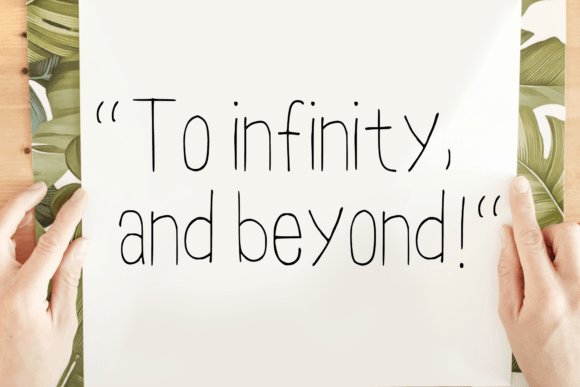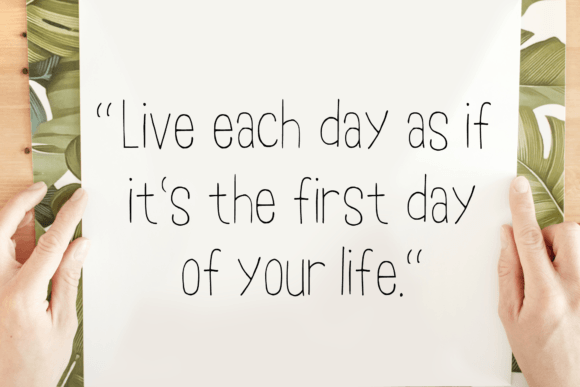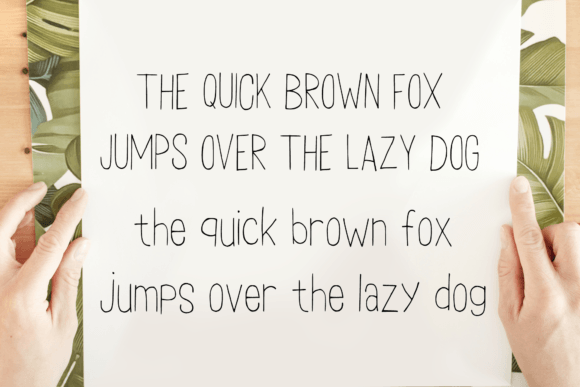
Introduction to Daily Writing Font
Daily Writing is your perfect everyday font for mimicking handwritten letters.
You can use it for anything ranging from t-shirts, kids’ book designs, and greeting cards to stickers and posters, or anything that needs a casual touch Fall in love with its incredibly versatile style, and use it to create lovely designs.
Key Features of Daily Writing Font